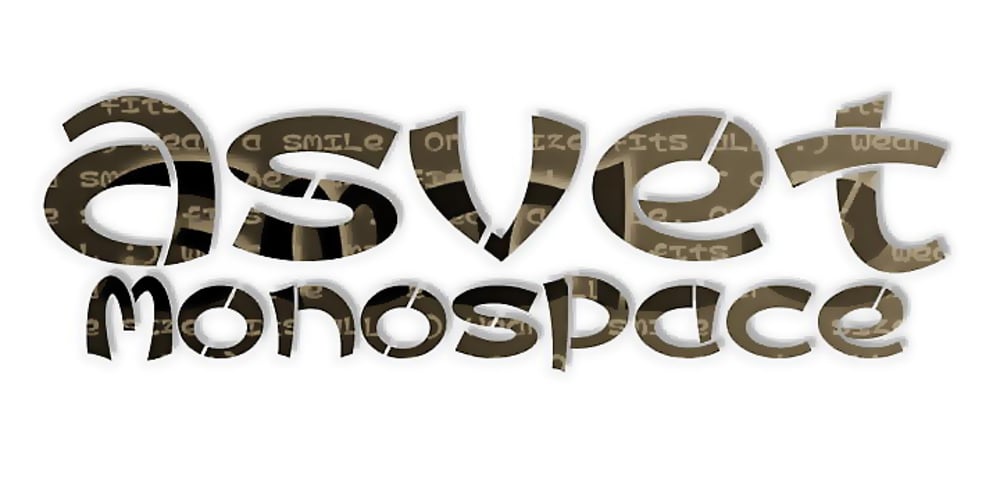
Asvet Mono
Asvet Mono font
Asvet Mono Font Family was designed by Azelea Rodgers and published by aRc. Asvet Mono contains 1 styles and family package options. Asvet Mono is a playful monospaced stencil that is bold and curvy. This cheerful TrueType Font has over 370 characters and it is legible in fine print.